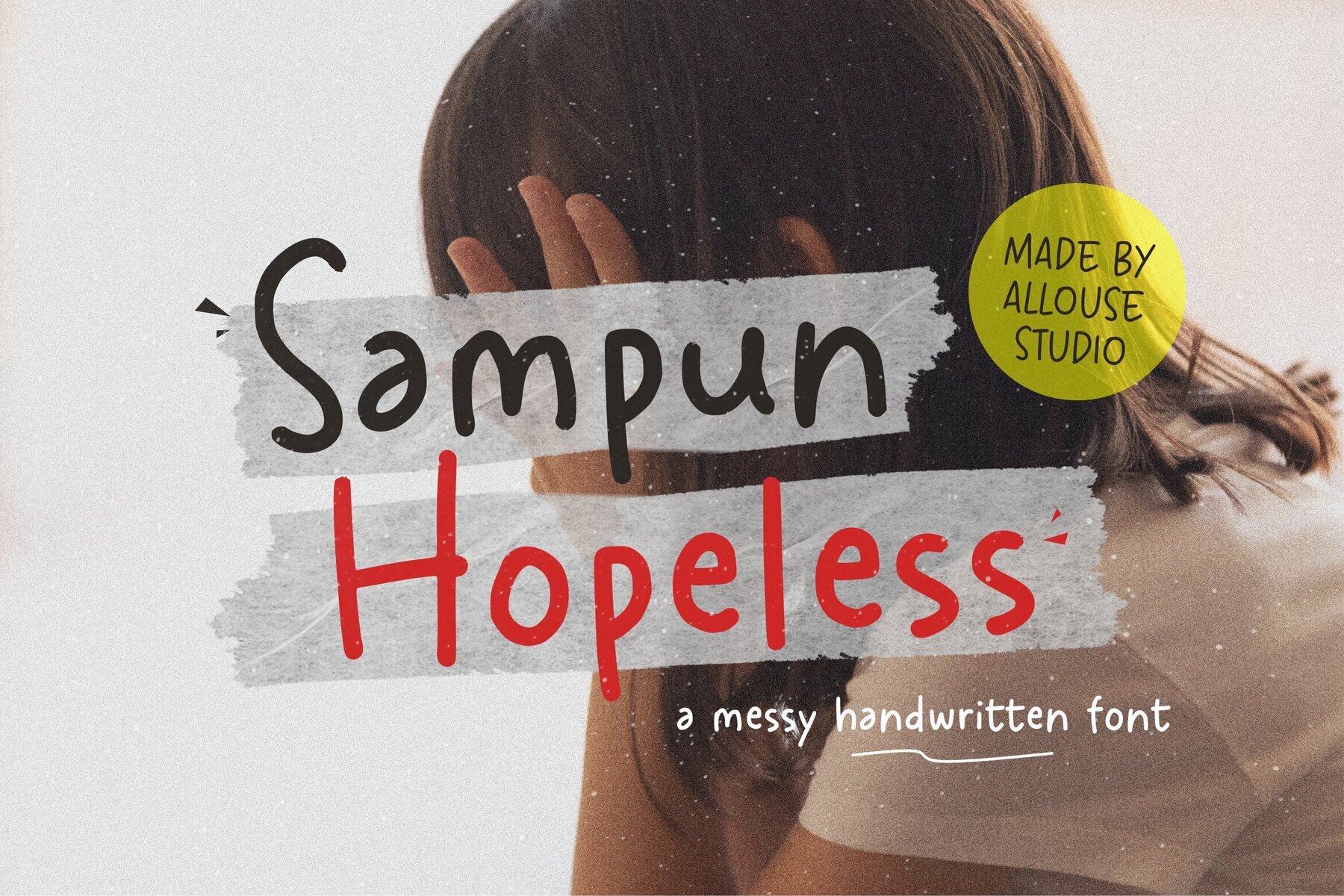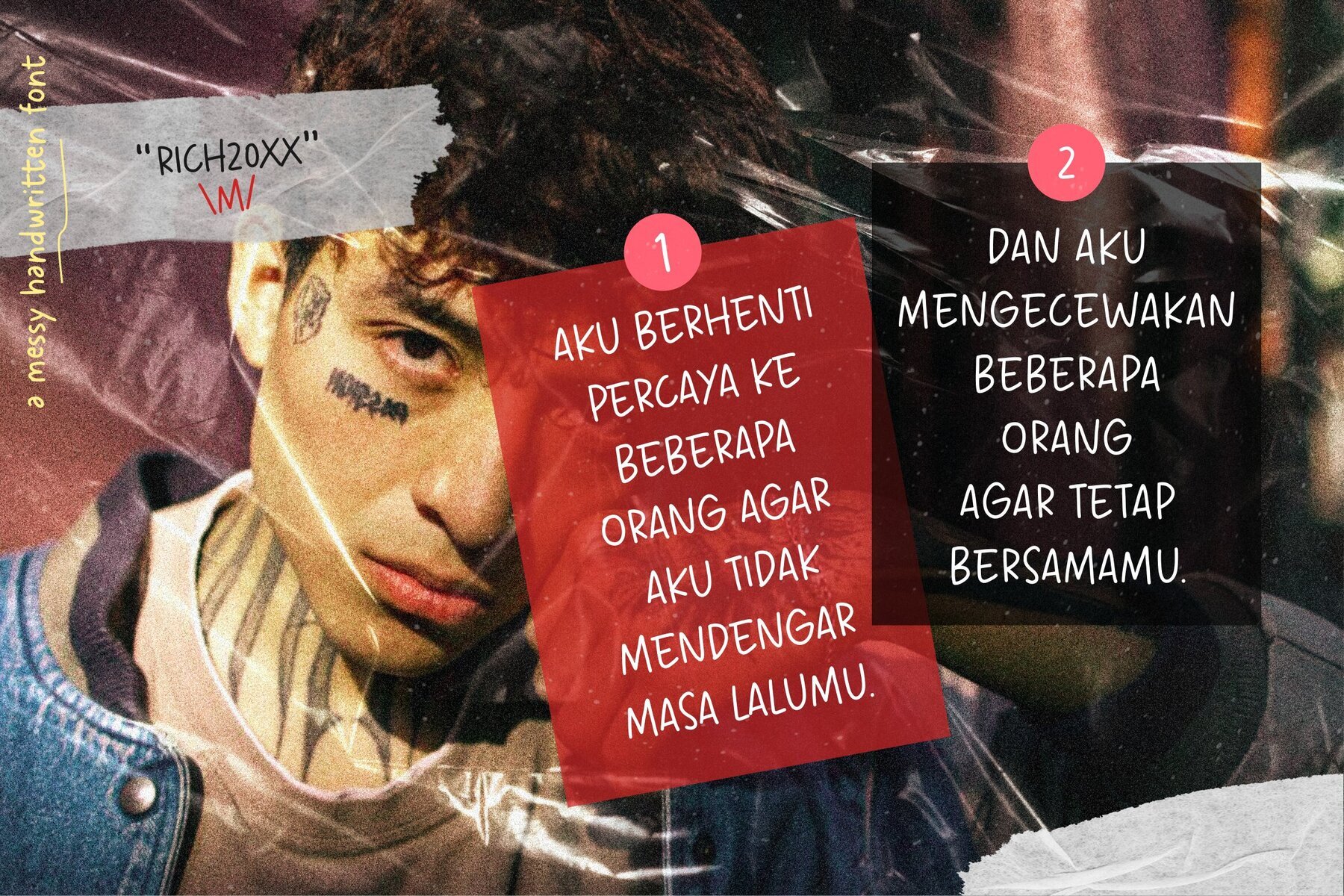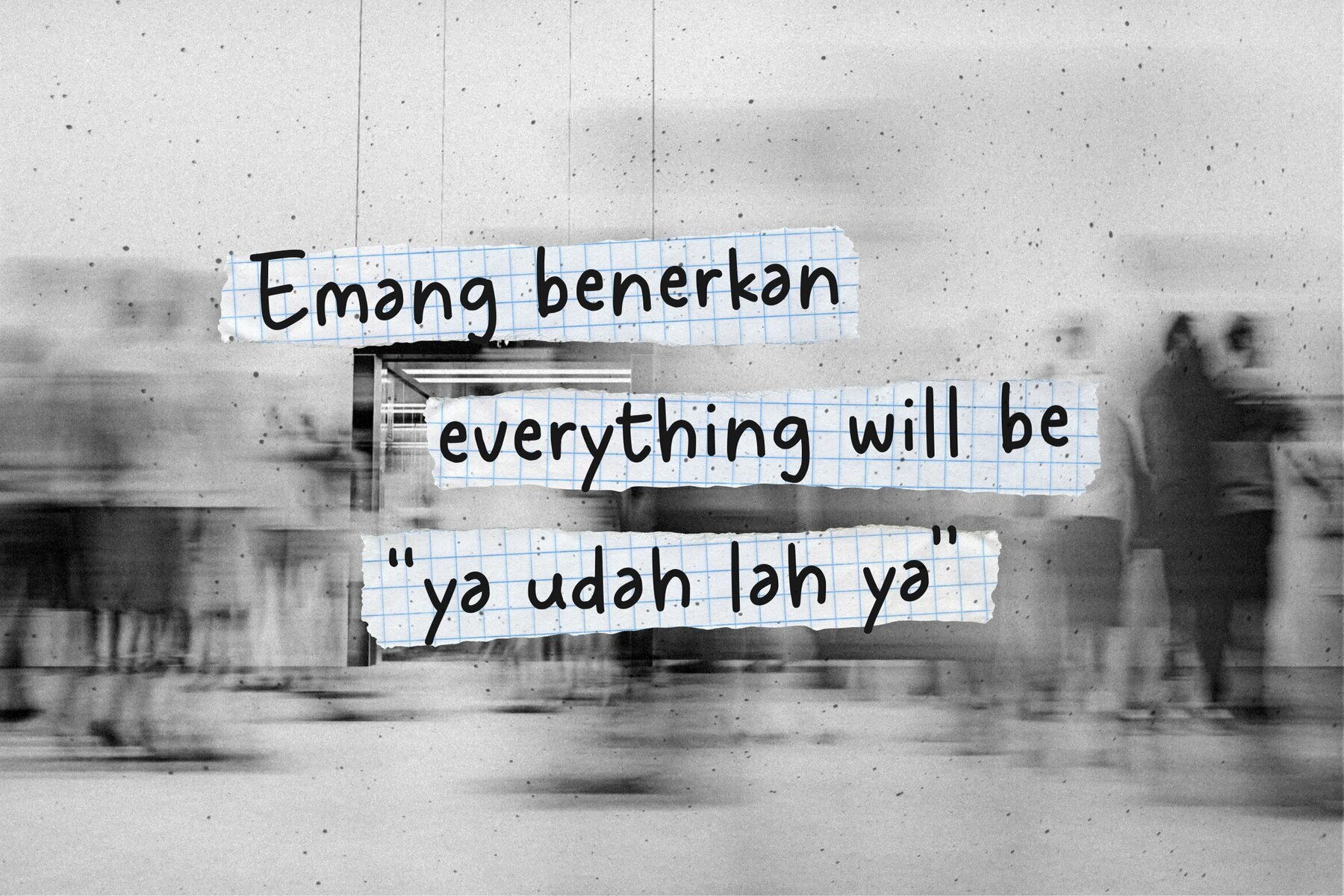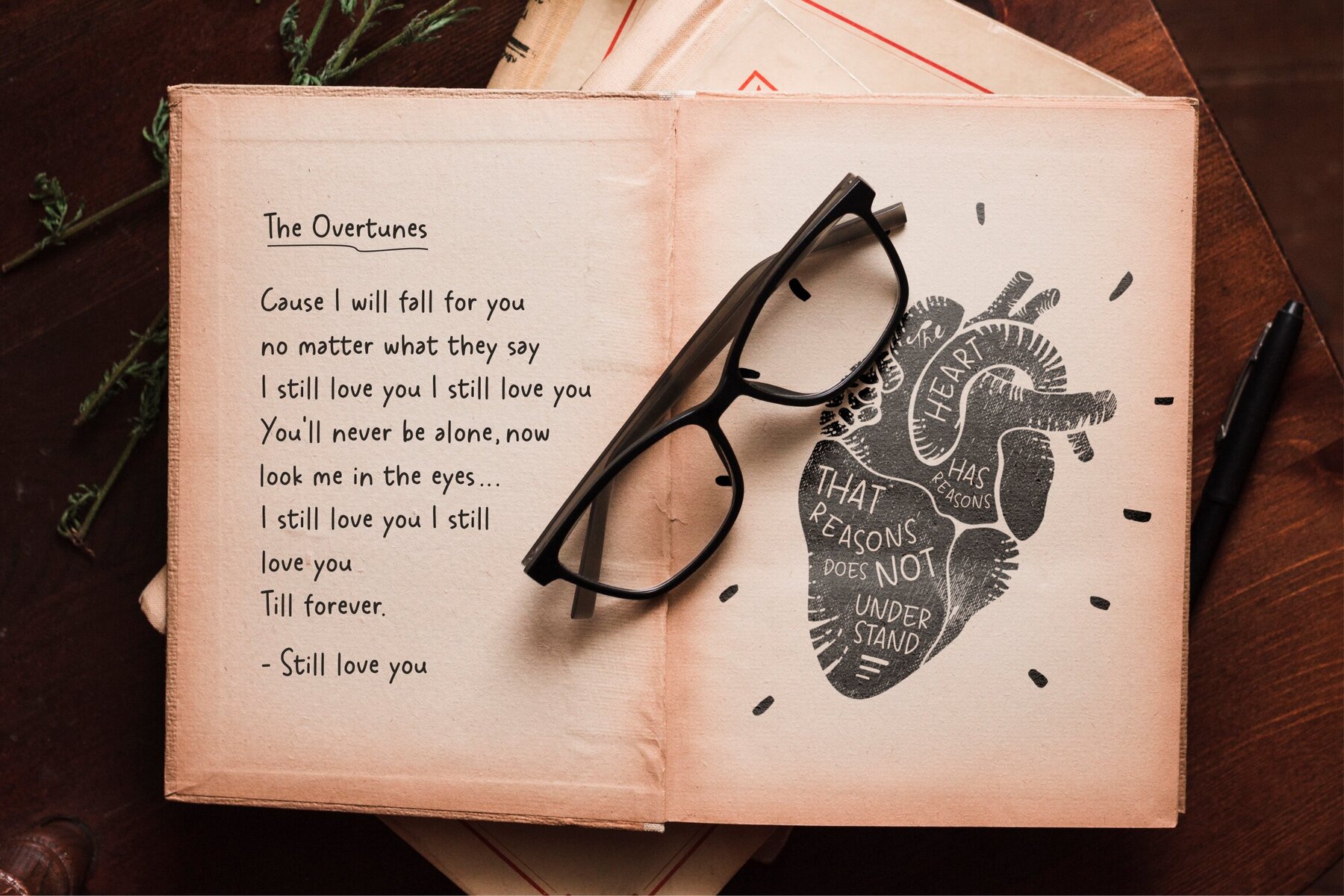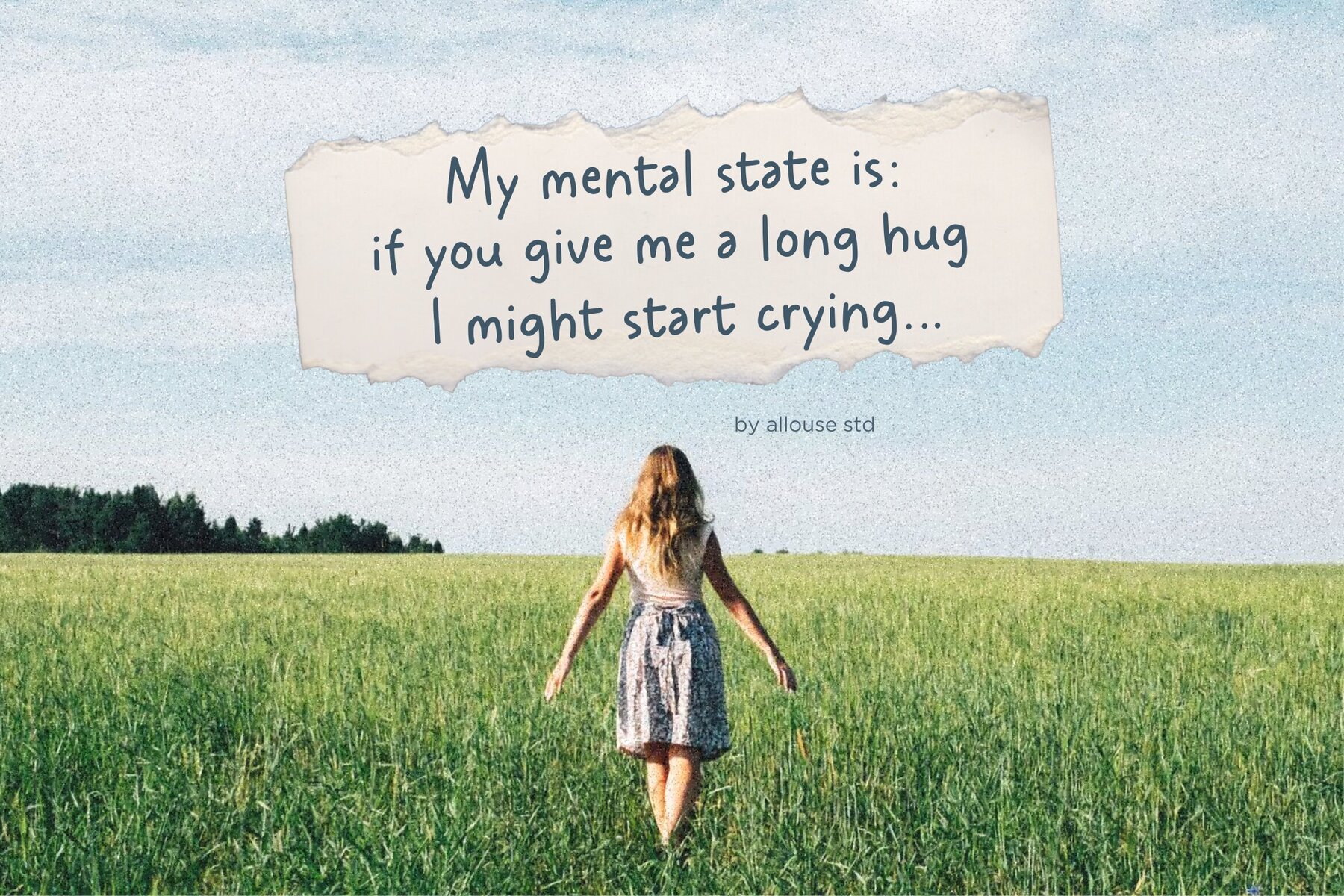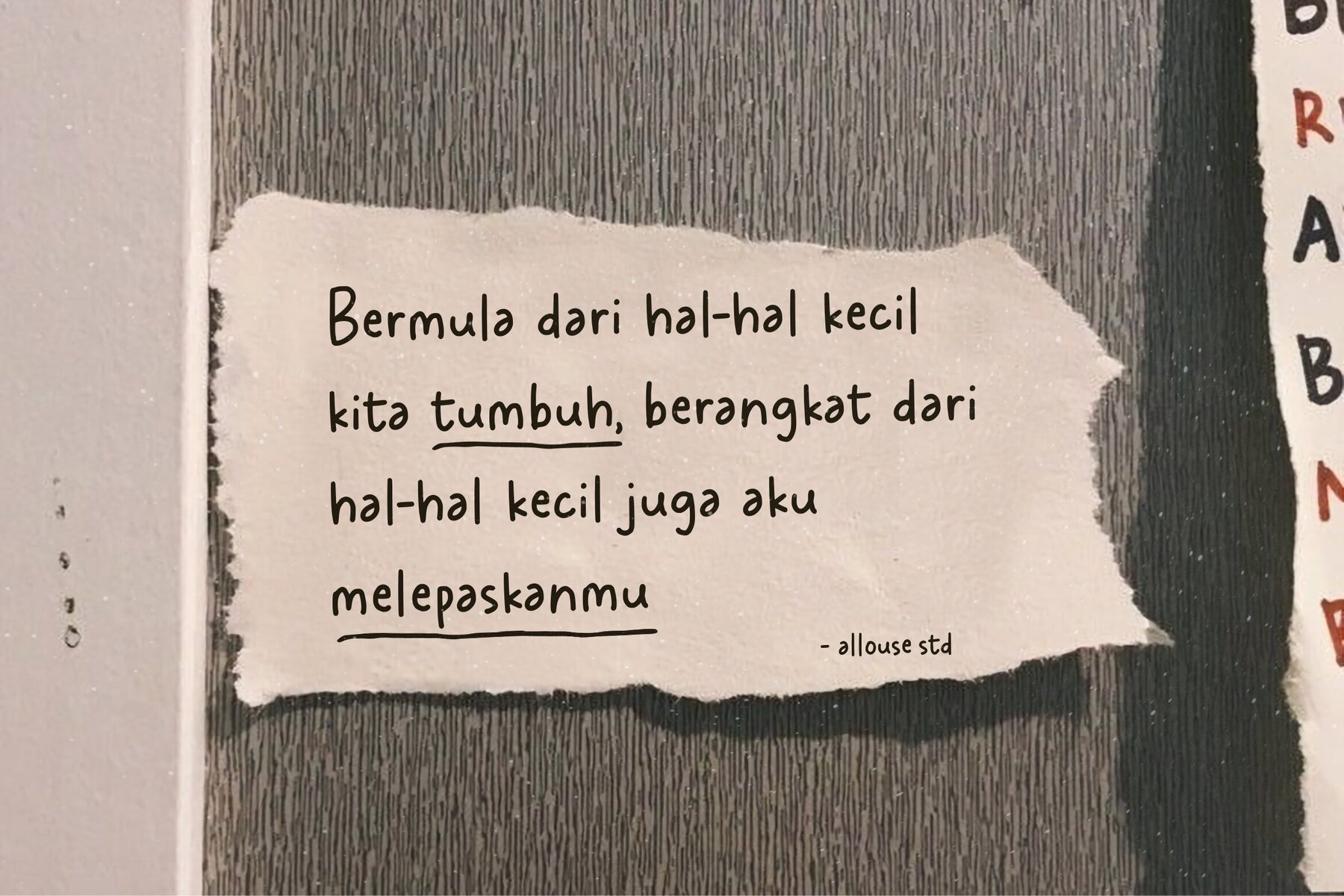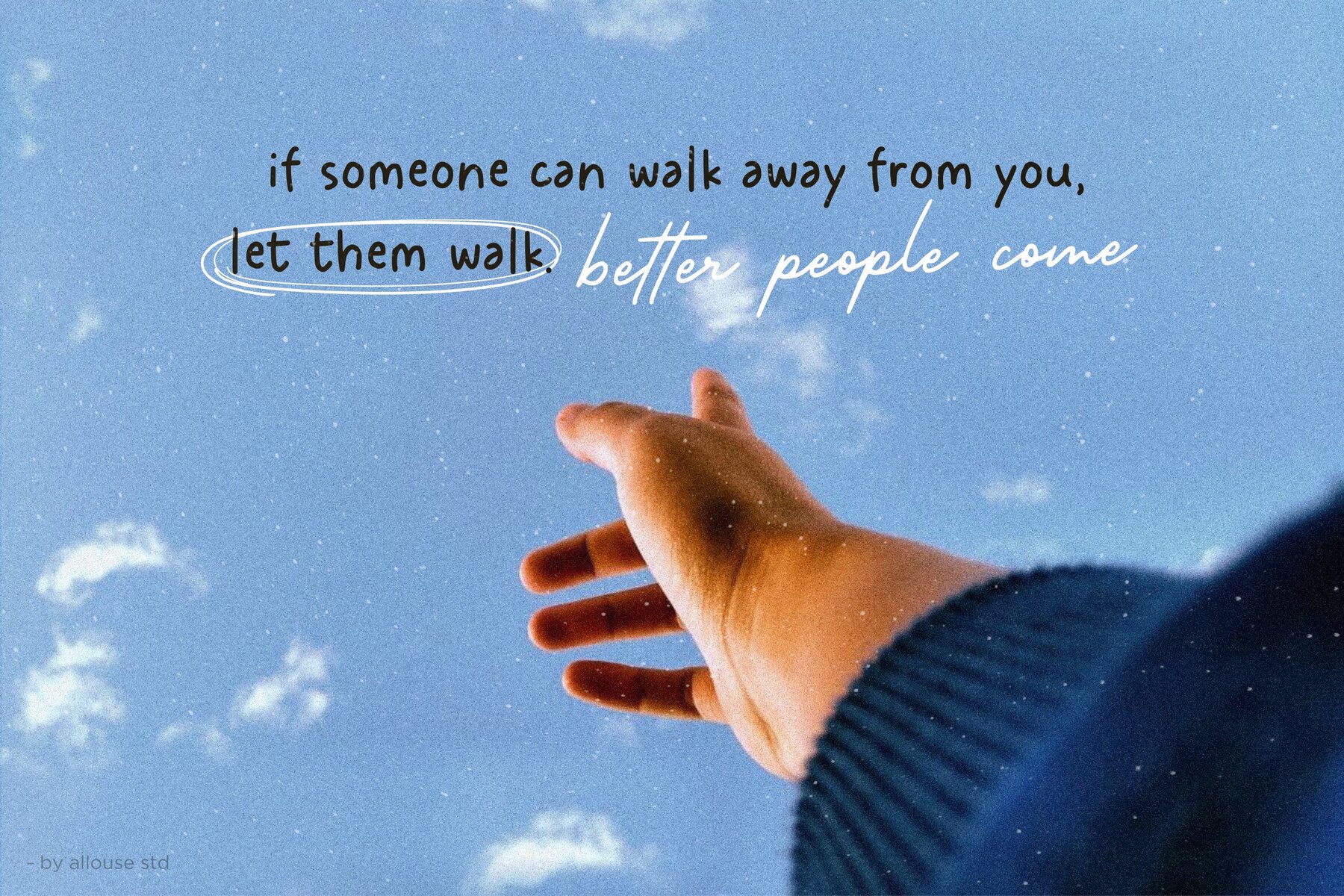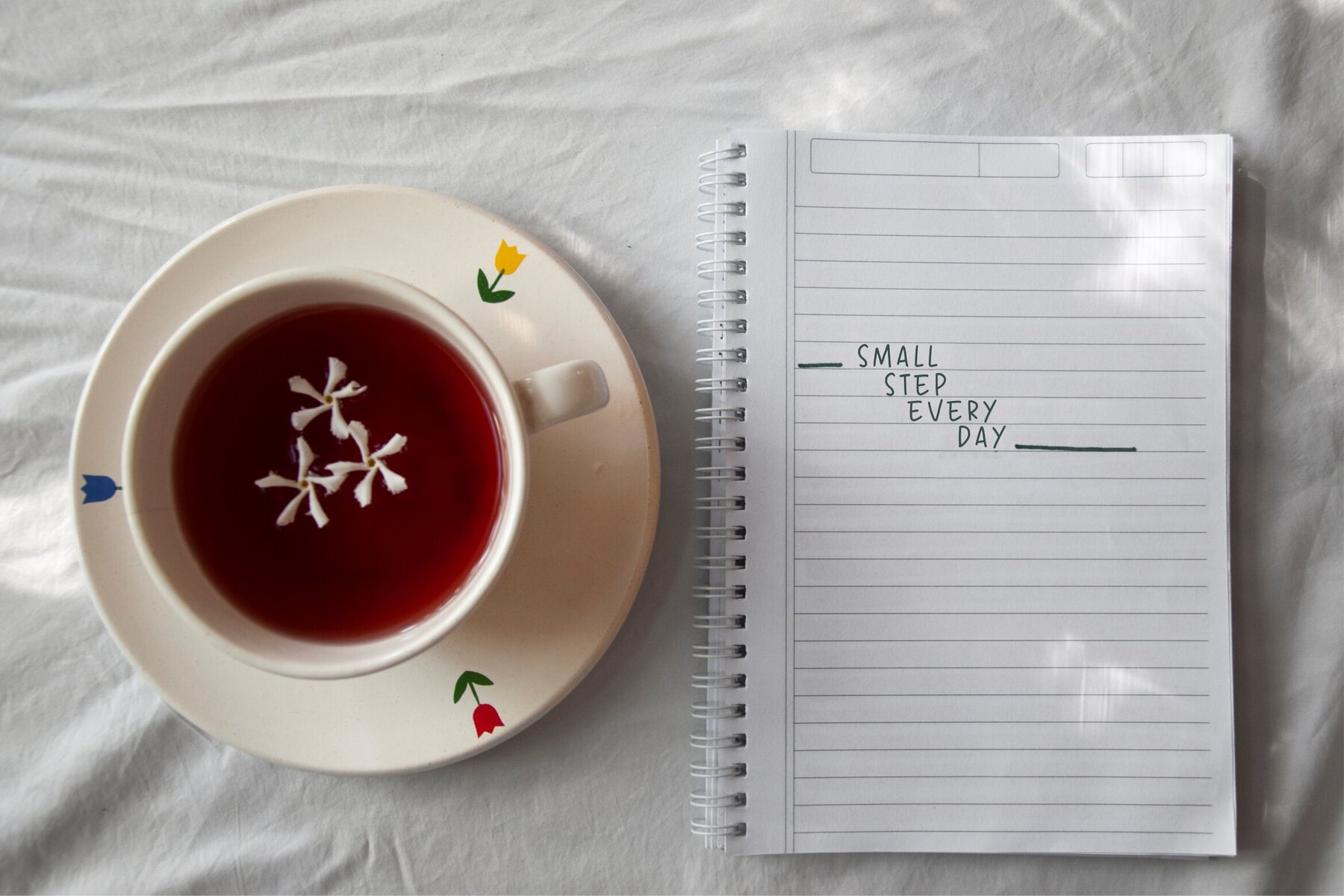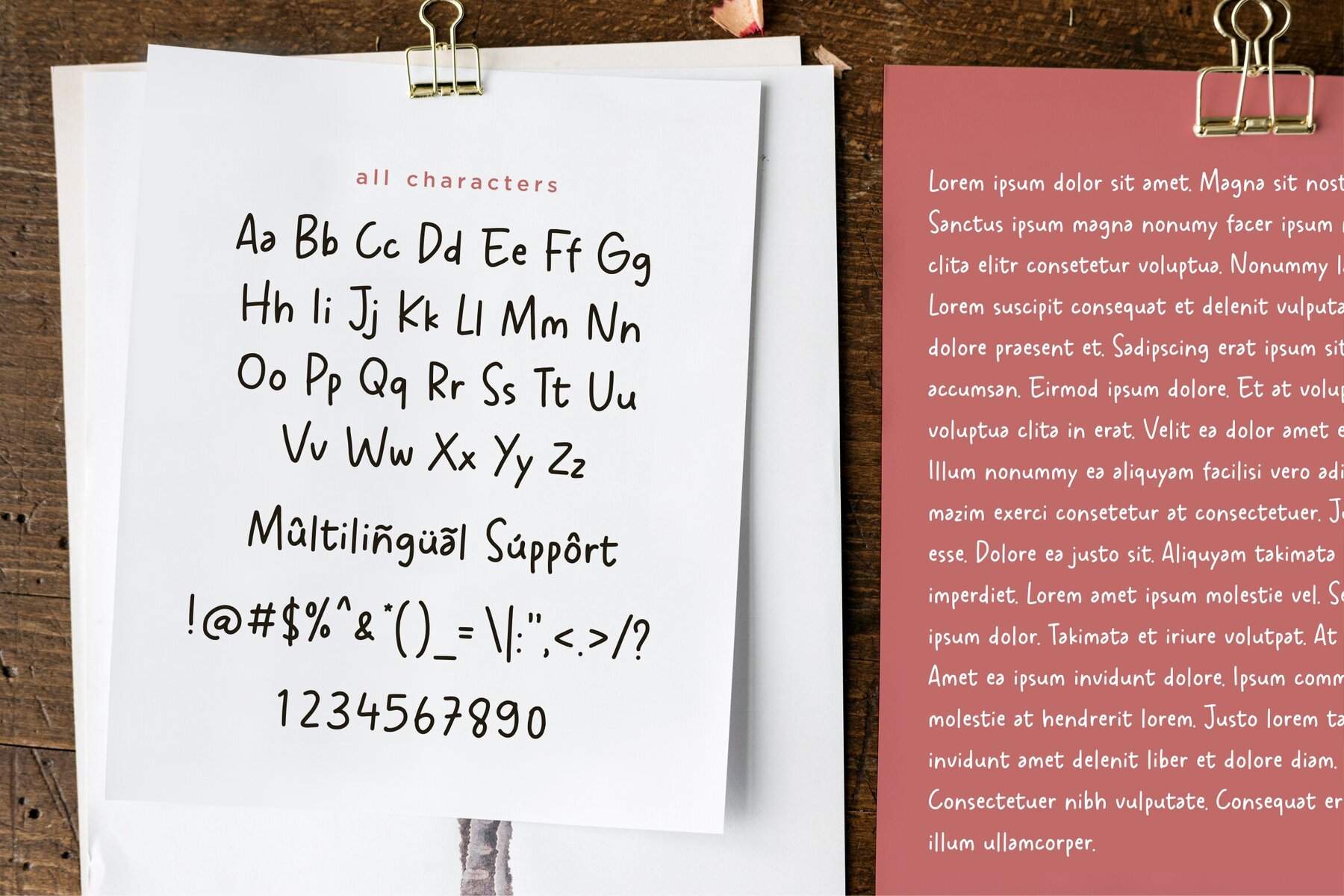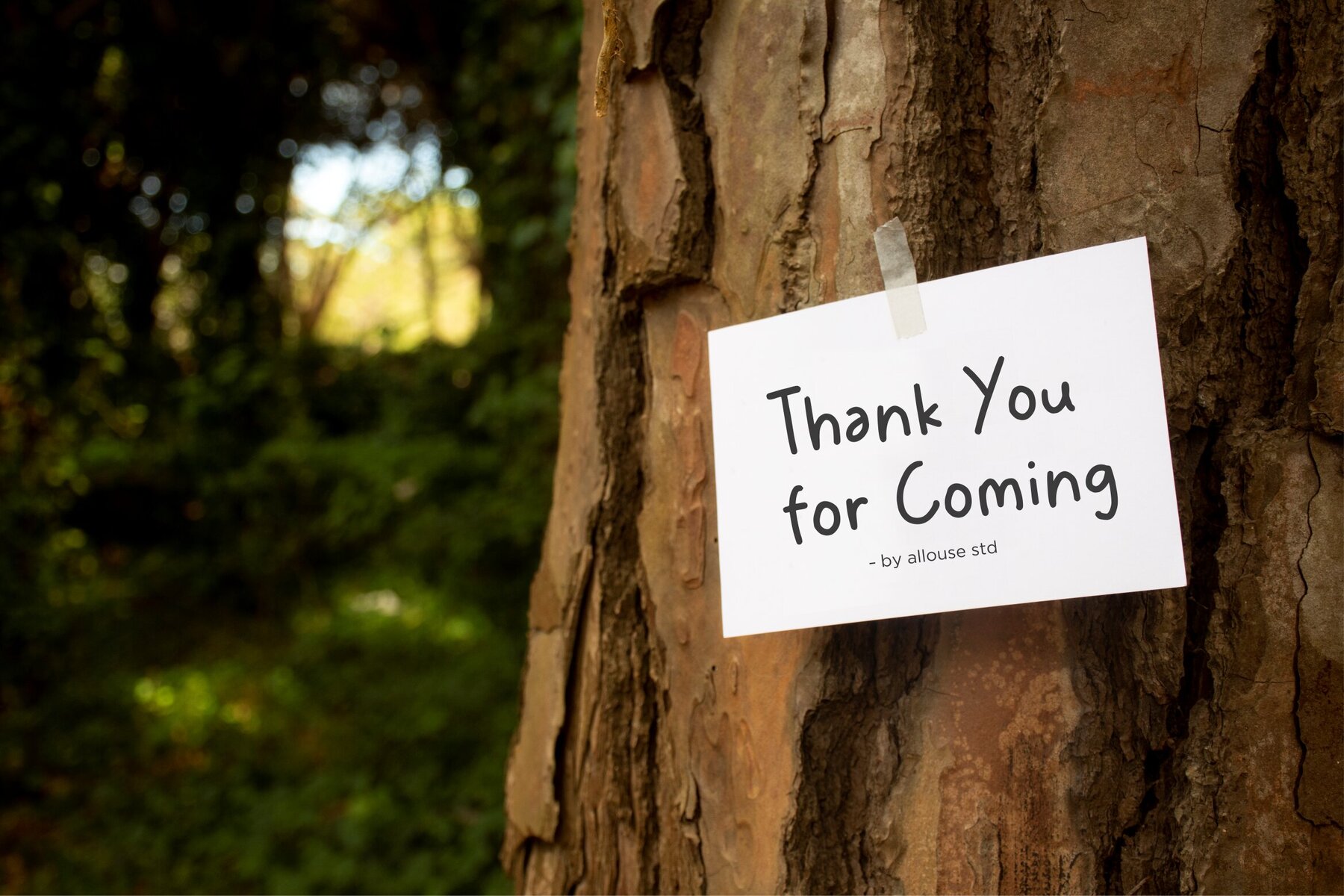
Sampun Hopeless Font
Sampun Hopeless Regular
Sampun Hopeless is a unique handwritten font that adds a touch of individuality and character to any design project. Its messy style is ideal for creating eye-catching and personal elements that stand out. Whether you're working on product packaging, a branding project, magazine layout, or social media content, this font provides the perfect amount of charm and expressiveness. Sampun Hopeless is also perfect for adding words over backgrounds to convey messages in a distinctive style.Sampun Hopeless: Messy Handwritten Font